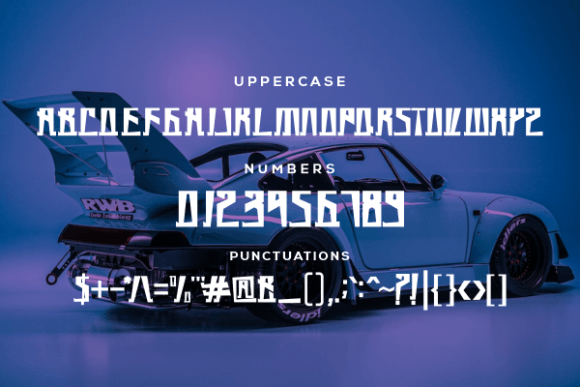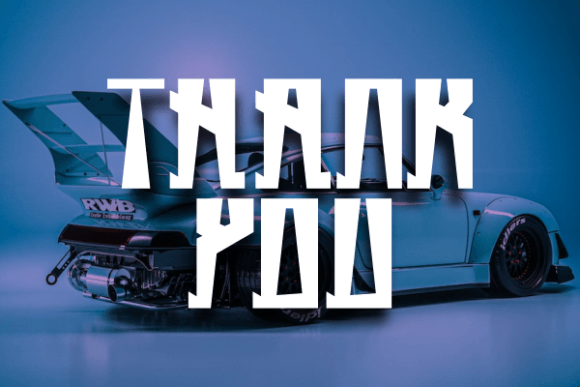
Introduction to Banbax Font
Remember that moment when you finally land on the perfect design element that takes your project from ordinary to extraordinary? It’s a rush of excitement and a sense of accomplishment that keeps you going. For designers, finding the right font can be the difference between a good design and a great one.
That’s where the Banbax Font comes in – a strong, modern, and bold display font that adds an incredibly powerful touch to your creative projects. With its high-quality design and versatility, it’s the perfect addition to any design resource. Whether you’re working on a project that requires a transparent background or a free download, Banbax Font is sure to elevate your design to the next level.
In this article, we’ll dive into the world of Banbax Font and explore its unique features, benefits, and how you can incorporate it into your next creative project.
Key Features of Banbax Font
- Includes a range of unique characters and glyphs for added creative possibilities
- Designed with a modern aesthetic, perfect for contemporary design projects
Honest Review: Banbax Font
As a designer, I’m always on the lookout for high-quality design resources to elevate my creative projects. The Banbax Font is one such resource that caught my attention.
- Wide range of styles and variations: The Banbax Font offers a variety of styles, from bold and playful to elegant and sophisticated, making it perfect for a wide range of creative projects.
While the Banbax Font is a valuable resource, there are some limitations to consider:
- Limited customization options: Some users may find the limited customization options restrictive, particularly for complex design projects.
- No support for non-standard characters: The font may not support non-standard characters, which could be a limitation for designers working with international clients or projects.
Overall, I’m impressed with the Banbax Font’s quality and versatility. While it may not be perfect, it’s a valuable addition to any designer’s toolkit, and its free download option makes it an attractive resource for designers of all levels.
Tips for Getting the Most Out of the Banbax Font
To get the most out of the Banbax Font, use it with a transparent background to create a seamless design. Experiment with different font sizes, styles, and colors to create a unique look.
The Banbax Font is perfect for creating logos, business cards, and other marketing materials. It’s also great for designing websites, social media graphics, and presentations.